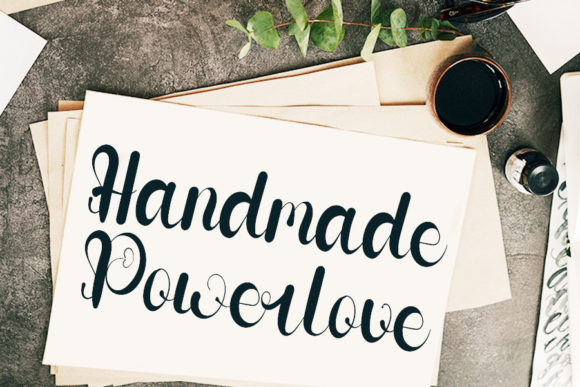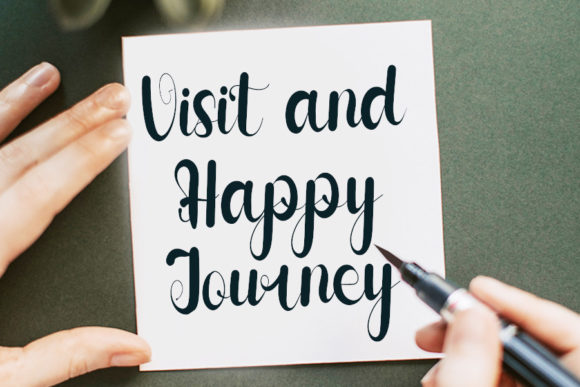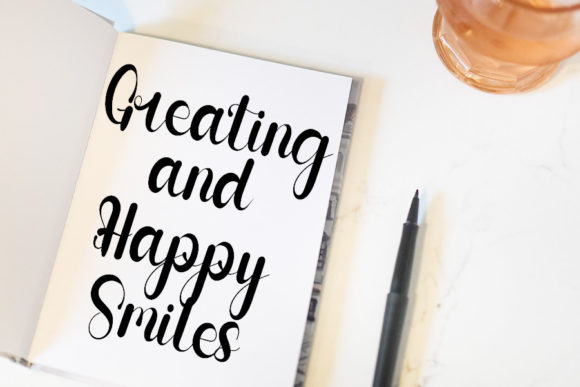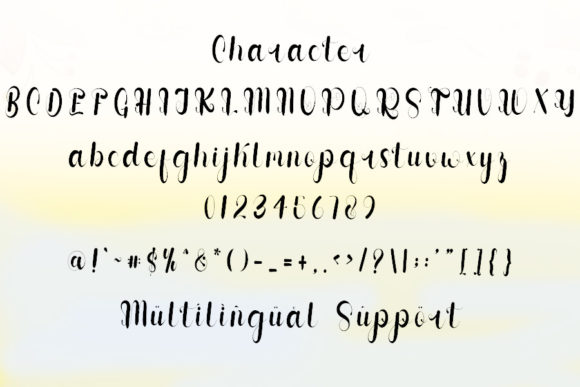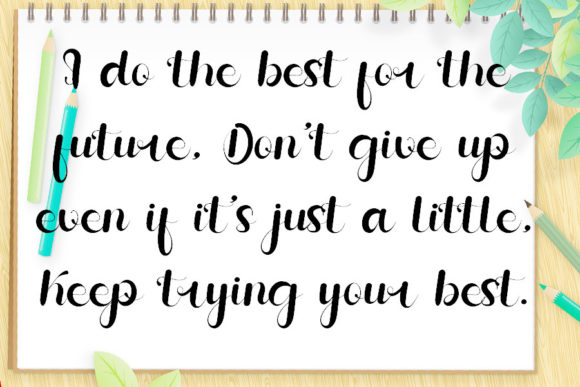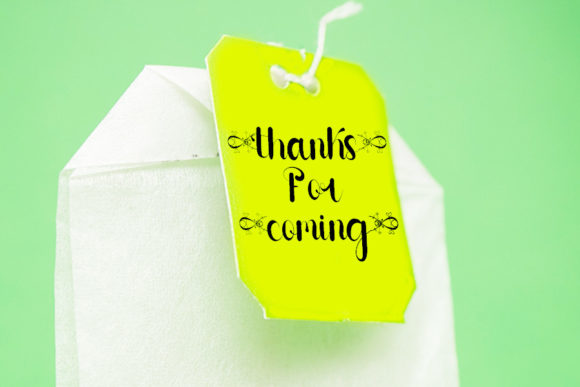
Introduction to Rettniya Font
Have you ever been in the midst of a creative project, pouring your heart and soul into a design, only to realize that it’s missing that perfect finishing touch? Maybe it’s a handwritten note, a charming title, or a whimsical quote – whatever it is, it can make all the difference in elevating your design from good to great. This is where the Rettniya Font comes in, a sophisticated and playful handwritten font that adds a natural feel to any project.
Key Features of Rettniya Font
- High-quality design: The Rettniya Font is a professional and stylish font ideal for creative projects, offering a unique touch to any design.
- Unique characteristics: The font features a unique blend of modern and vintage elements, making it perfect for creative projects that require a distinctive look.
Honest Review: Rettniya Font
As a designer, I’m always on the lookout for high-quality design resources to elevate my creative projects. Recently, I stumbled upon the Rettniya Font, and I’m excited to share my honest review.
- High-quality design: The Rettniya Font boasts a unique and stylish design that’s perfect for modern creative projects.
- Limited character set: The font’s character set is limited, which may not be ideal for designers who need a wide range of characters for their project.
- Lack of customization options: Unfortunately, the font doesn’t offer many customization options, which may limit its use in certain design scenarios.
Tips for Getting the Most Out of Rettniya Font
To get the most out of the Rettniya Font, use it in combination with other high-quality design resources, such as graphics and images. This will help you create a cohesive and visually appealing design.
The Rettniya Font is suitable for a variety of creative projects, including logos, branding materials, and marketing materials. Its transparent background and high-quality design make it an ideal choice for design projects requiring a unique and eye-catching font.